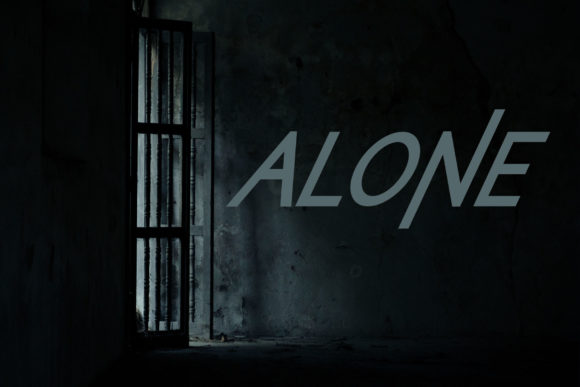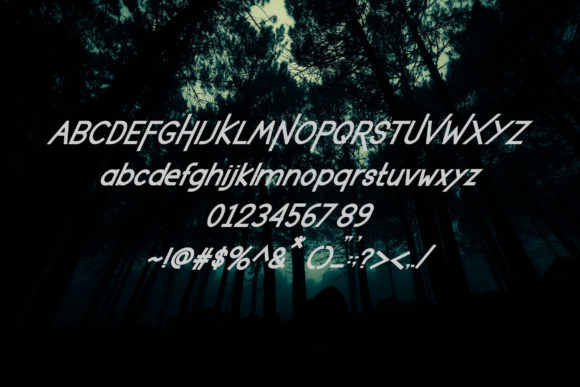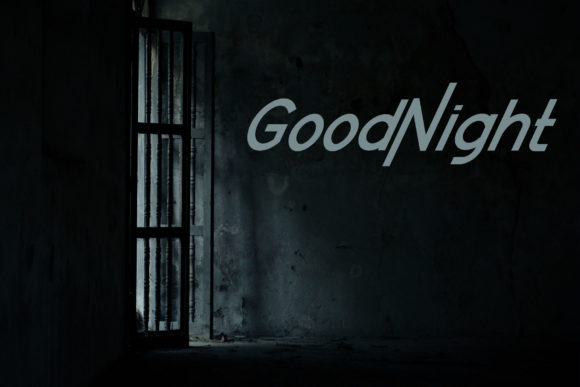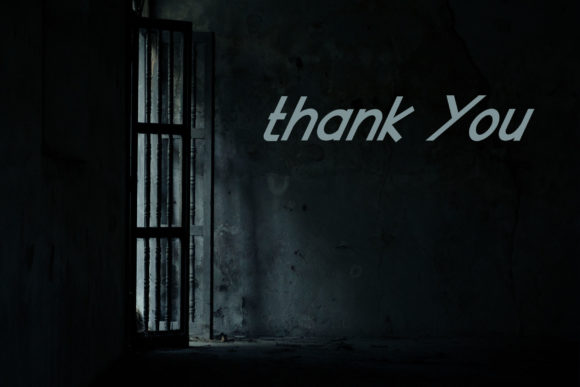
Introduction to No Fear Font
Have you ever stared at a blank page, waiting for inspiration to strike? For designers, this moment can be both exhilarating and daunting. It’s the spark that sets your creative project ablaze, but it’s also the pressure to deliver something truly exceptional. That’s where the No Fear Font comes in – a high-quality display font that’s as bold as it is beautiful.
With its transparent background and versatile design, the No Fear Font is the perfect companion for any creative endeavor. Whether you’re working on a logo, poster, or social media graphic, this font will give your design the edge it needs to stand out. And the best part? It’s available for free download, making it an invaluable resource for designers of all levels.
So why settle for a generic font when you can unleash your creativity with the No Fear Font? This assertive display font is sure to inspire your next project and leave a lasting impression on your audience.
Key Features of No Fear Font
- High-quality design: No Fear Font is crafted with precision and care to deliver a visually appealing and professional look for any creative project.
- Transparent background: This font features a transparent background, making it perfect for use on any design resource, including logos, graphics, and more.
- High-resolution design: This font is designed at a high resolution (300 DPI), making it suitable for use in print and digital applications.
- Unique characteristics: No Fear Font features a bold and modern design, with a unique blend of geometric and organic elements that set it apart from other fonts.
- Perfect for creative projects: No Fear Font is ideal for use in creative projects, including logos, branding, graphics, and more, where a high-quality and distinctive font is required.
Honest Review: No Fear Font
As a designer, I’m always on the lookout for high-quality fonts that can elevate my creative projects. The No Fear Font has caught my attention, and I’d like to share my honest review.
- ✨ The font is highly legible and versatile, making it suitable for a wide range of creative projects.
- ✨ The font’s transparent background makes it easy to use on any design element, from logos to text overlays.
- ⚠️ The font’s design is quite bold, which may not be suitable for projects requiring a more subtle look.
- ⚠️ The No Fear Font is a single font family, so it may not offer the same level of customization as more comprehensive font packages.
Overall, I think the No Fear Font is a solid design resource that can add a bold, eye-catching touch to your creative projects. While it may have some limitations, its high-quality design and transparent background make it a great choice for designers looking for a free download.
Use a transparent background to make the font stand out in your design. Experiment with different font sizes and colors to add visual interest. Consider pairing the No Fear Font with other design elements to create a cohesive look.
The No Fear Font is ideal for use in creative projects such as logos, posters, and infographics. It’s also great for designing websites, social media graphics, and marketing materials.